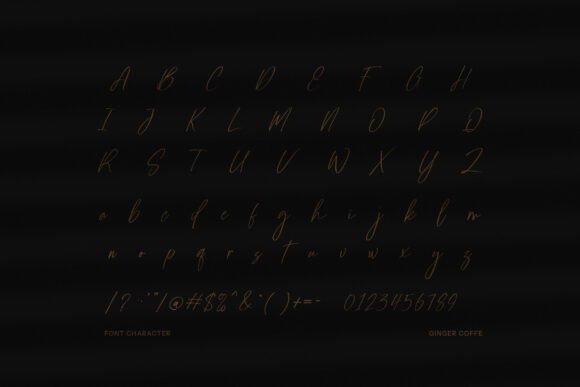
Ginger Coffe Font: Elevate Your Designs with Elegance and Warmth
In the world of typography, few fonts manage to strike a balance between elegance, warmth, and versatility. However, the Ginger Coffe Font stands out as a beautifully refined script typeface that exudes charm and understated sophistication. Designed with a smooth, flowing style and a touch of modern refinement, this font is perfect for creating authentic handwritten signatures, upscale branding, and stylish visual identities.
Unparalleled Elegance and Versatility
Ginger Coffe Signature Font boasts graceful curves and a rich variety of calligraphic alternates, bringing a personalized, handcrafted feel to every letter. This font is ideal for a wide range of design projects, including wedding invitations, logo designs, business cards, and magazine covers. Its natural, free-flowing script delivers a polished, elegant finish that stands out in both digital and print formats.
One of the standout features of Ginger Coffe is its wide range of stylistic alternates and ligatures. This provides designers with endless creative possibilities and full control over their design aesthetic. Whether you’re working on luxury branding, fashion blogs, photography watermarks, album artwork, or social media graphics, Ginger Coffe has got you covered.
From romantic event stationery to modern website headers, Ginger Coffe Signature Font brings sophistication and personality to every project. Its combination of elegance and warmth makes it the perfect choice for creatives seeking a refined, yet approachable handwritten style.
Endless Design Possibilities
Ginger Coffe Font is more than just a font; it’s a signature of your creativity. With its smooth, flowing style and a touch of modern sophistication, this font can be used to create a wide range of designs, including:
- Wedding invitations and event stationery
- Luxury branding and upscale marketing materials
- Logo designs and business cards
- Magazine covers and editorial design
- Fashion blogs and social media graphics
- Photography watermarks and album artwork
Why Choose Ginger Coffe Font?
So, why choose Ginger Coffe Font for your design projects? Here are just a few reasons:
- Elegance and sophistication: Ginger Coffe exudes charm and understated elegance, making it perfect for high-end designs.
- Versatility: This font is highly versatile and can be used for a wide range of design projects.
- Endless creative possibilities: With its wide range of stylistic alternates and ligatures, Ginger Coffe provides designers with endless creative possibilities.
In conclusion, Ginger Coffe Font is a beautifully refined script typeface that is perfect for creatives seeking a refined, yet approachable handwritten style. With its smooth, flowing style, elegant curves, and wide range of stylistic alternates and ligatures, this font is ideal for a wide range of design projects.
Whether you’re working on luxury branding, wedding invitations, or social media graphics, Ginger Coffe delivers a polished, elegant finish that stands out in both digital and print formats. So why settle for an ordinary font when you can elevate your designs with the elegance and warmth of Ginger Coffe Font?